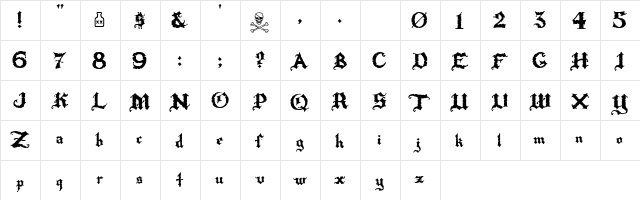
Copyright: Rapscallion is a FREE pirate-style font inspired by Melbourne, Australia folk-punk band MUTINY http://www.mutiny.com.au). Details show best at 48-pt or higher (prints cleaner than appears on screen). Questions/Comments: